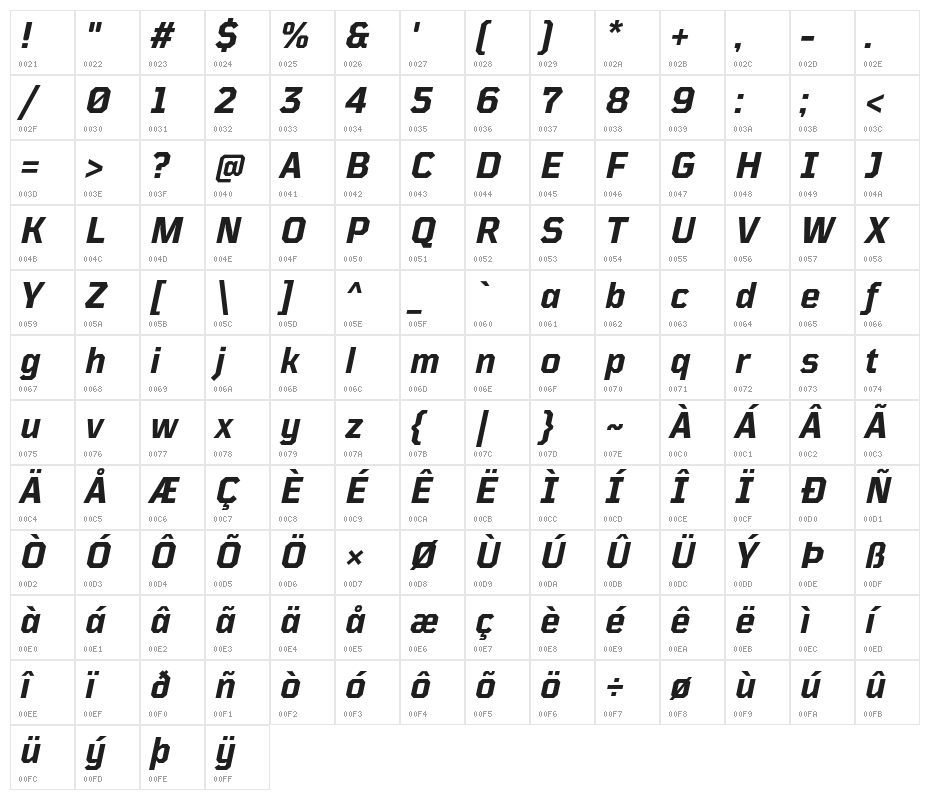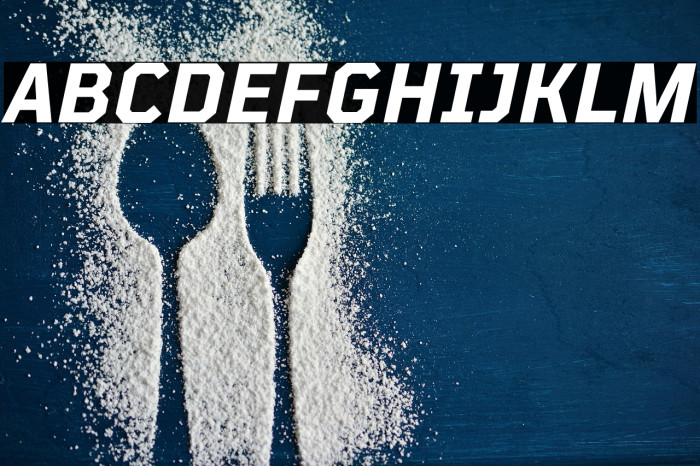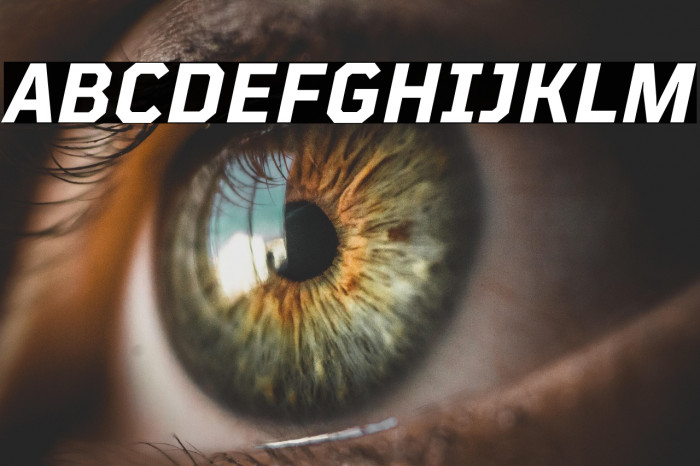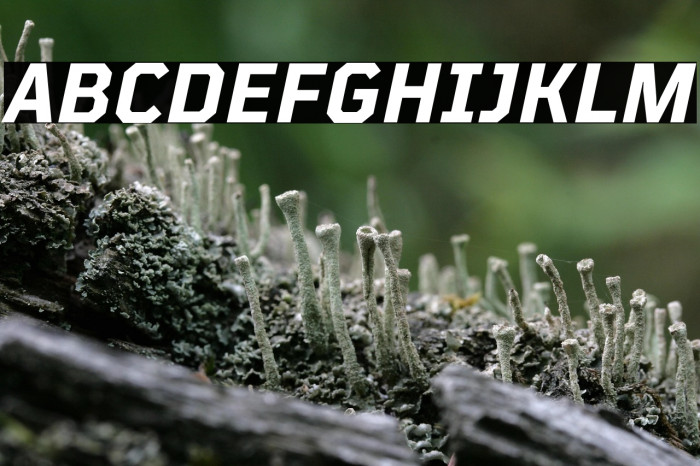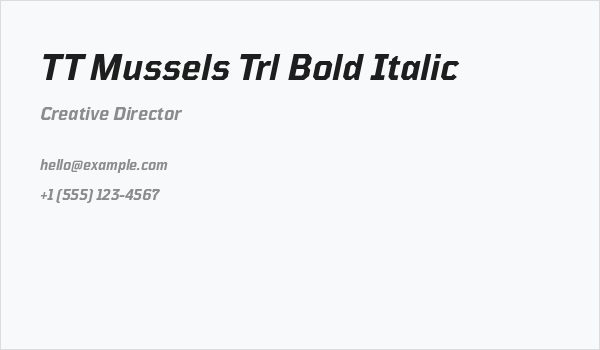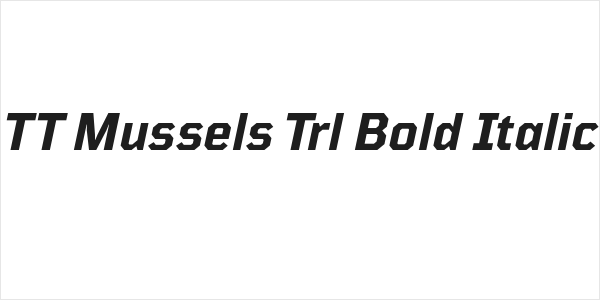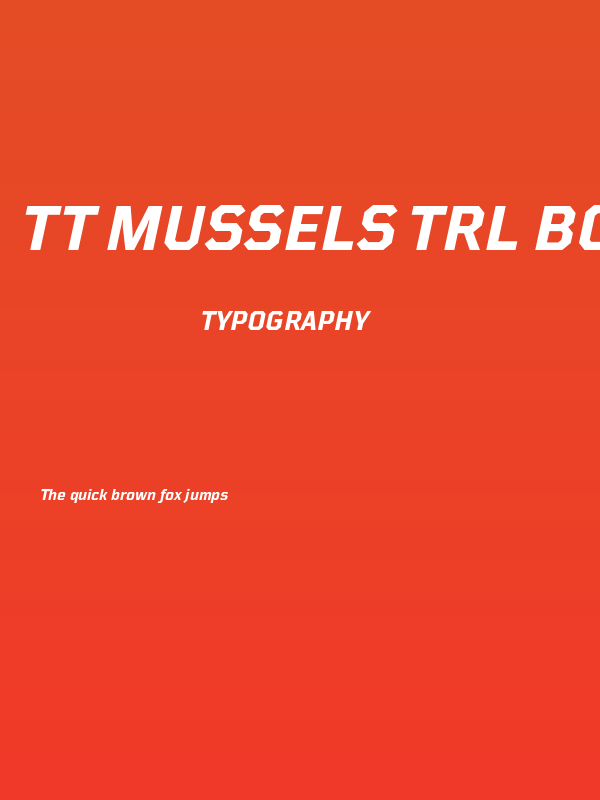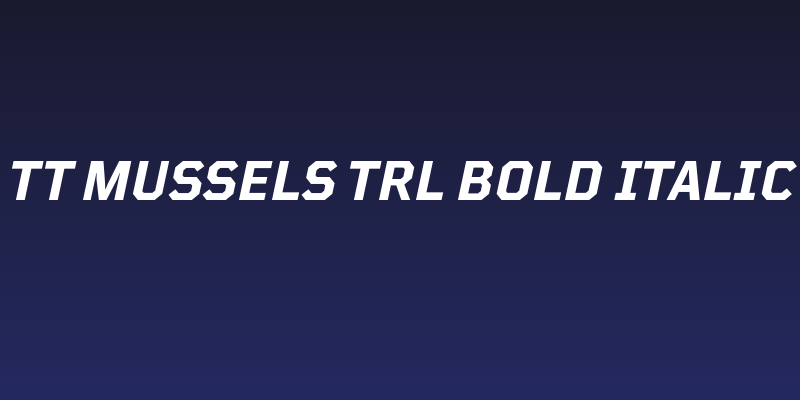
TT Mussels Trl Bold Italic Font
TT Mussels Trl Bold Italic Description
This font exhibits a bold and italicized style, characterized by its strong geometric shapes and angular edges. The uppercase letters maintain a consistent height, while the lowercase letters are slightly more compact, providing a balanced appearance. The numbers are robust and align well with the overall design, ensuring readability. Special characters are distinct and integrate seamlessly with the alphabet, enhancing the font's versatility. The slanted orientation adds a dynamic and modern touch, making it suitable for various creative applications.
| Use Case | Headlines, Logos, Advertising |
| Proposed Projects | Ideal for branding, advertising, and editorial design where a modern and dynamic look is desired. |